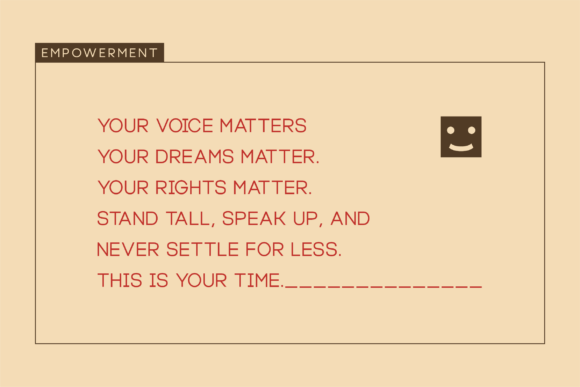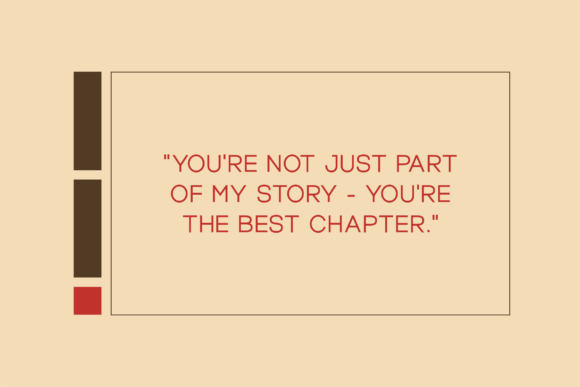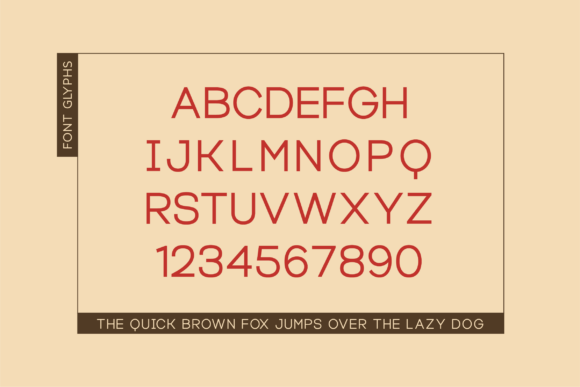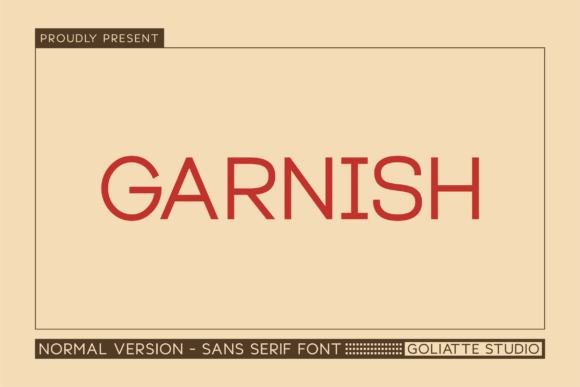
Introduction to Garnish Font
Introducing Garnish – A Modern Sans Serif Typeface Garnish is a bold, all-caps sans serif font designed for the modern designer.
With its clean lines and minimalist aesthetic, this typeface exudes strength and authority It is perfect for projects that require a sense of professionalism and impact.
Key Features of Garnish Font